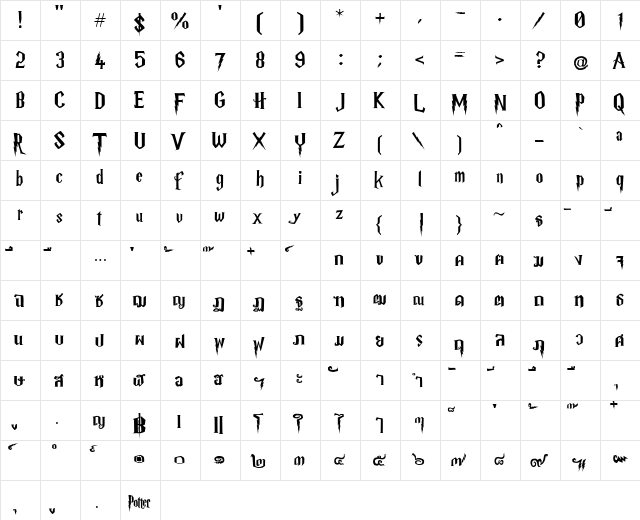
Sarun's HarryPotter Regular
| Foundry | Sarun Noicharoen |
| Designer | Sarun Noicharoen |
Design Context for Sarun's HarryPotter Typeface
Sarun's HarryPotter is a composed and adaptable typeface that performs quietly and consistently across a wide range of design contexts.